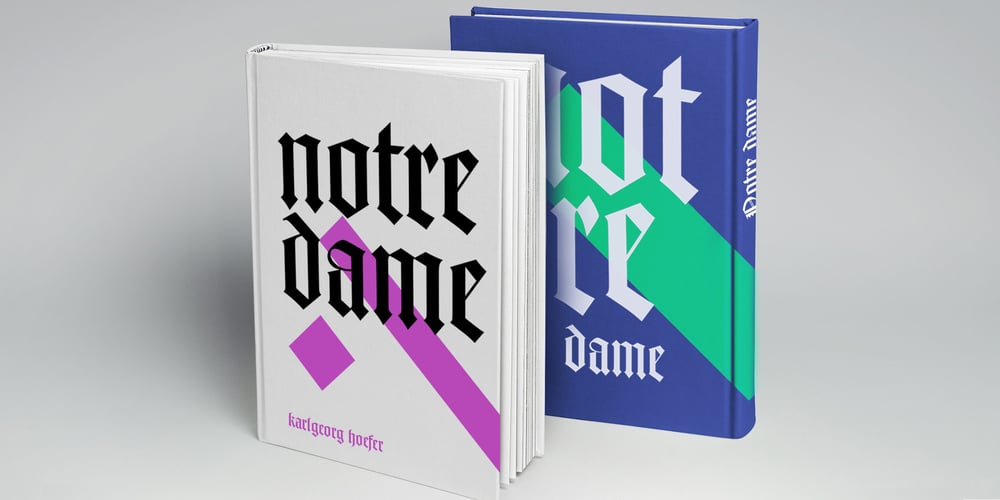
Notre Dame Font Family was designed by Karlgeorg Hoefer and published by Linotype. Notre Dame contains 2 styles and family package options. Notre Dame is a part of the 1990 program Type before Gutenberg, which included the work of twelve contemporary font designers and represented styles from across the ages. Linotype offers a package including all these fonts on its web page, www.fonts.de. Notre Dame was designed by Karlgeorg Hoefer, who was inspired by the structure of forms once used mainly for liturgical purposes. Digital techniques made it possible to add Gothic ornaments and borders to the font, perfect for designing anything which should have a late Gothic feel.